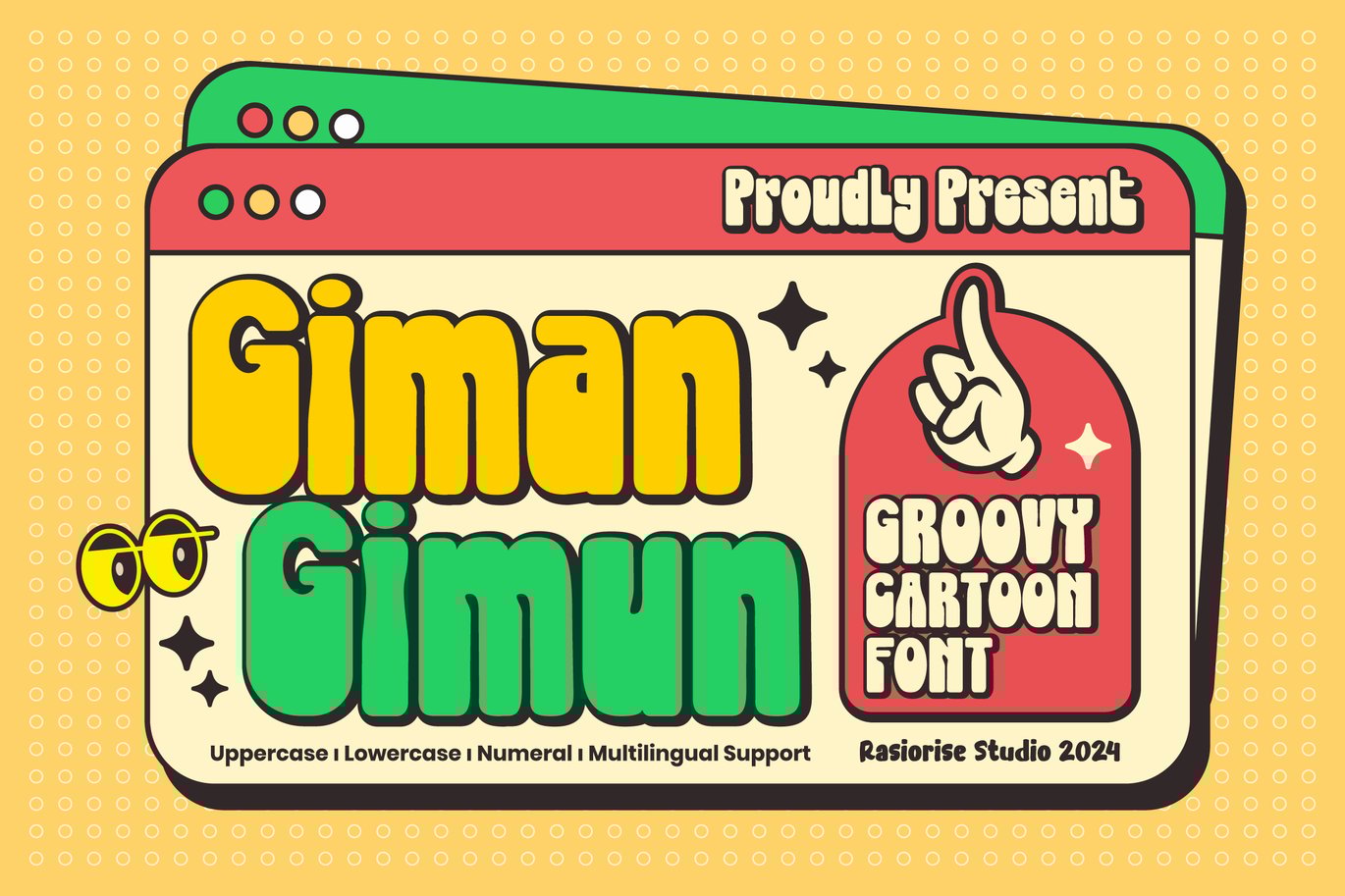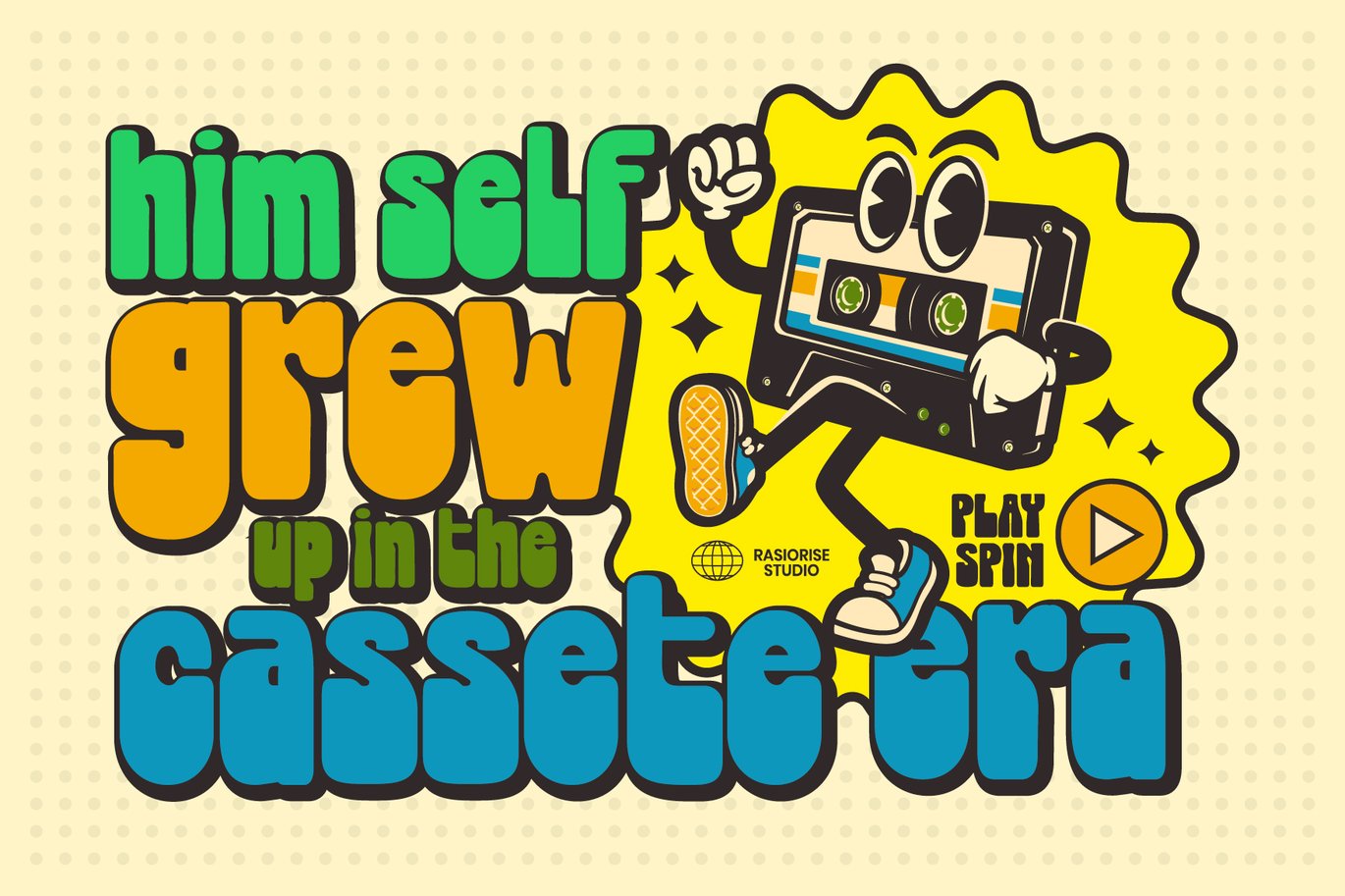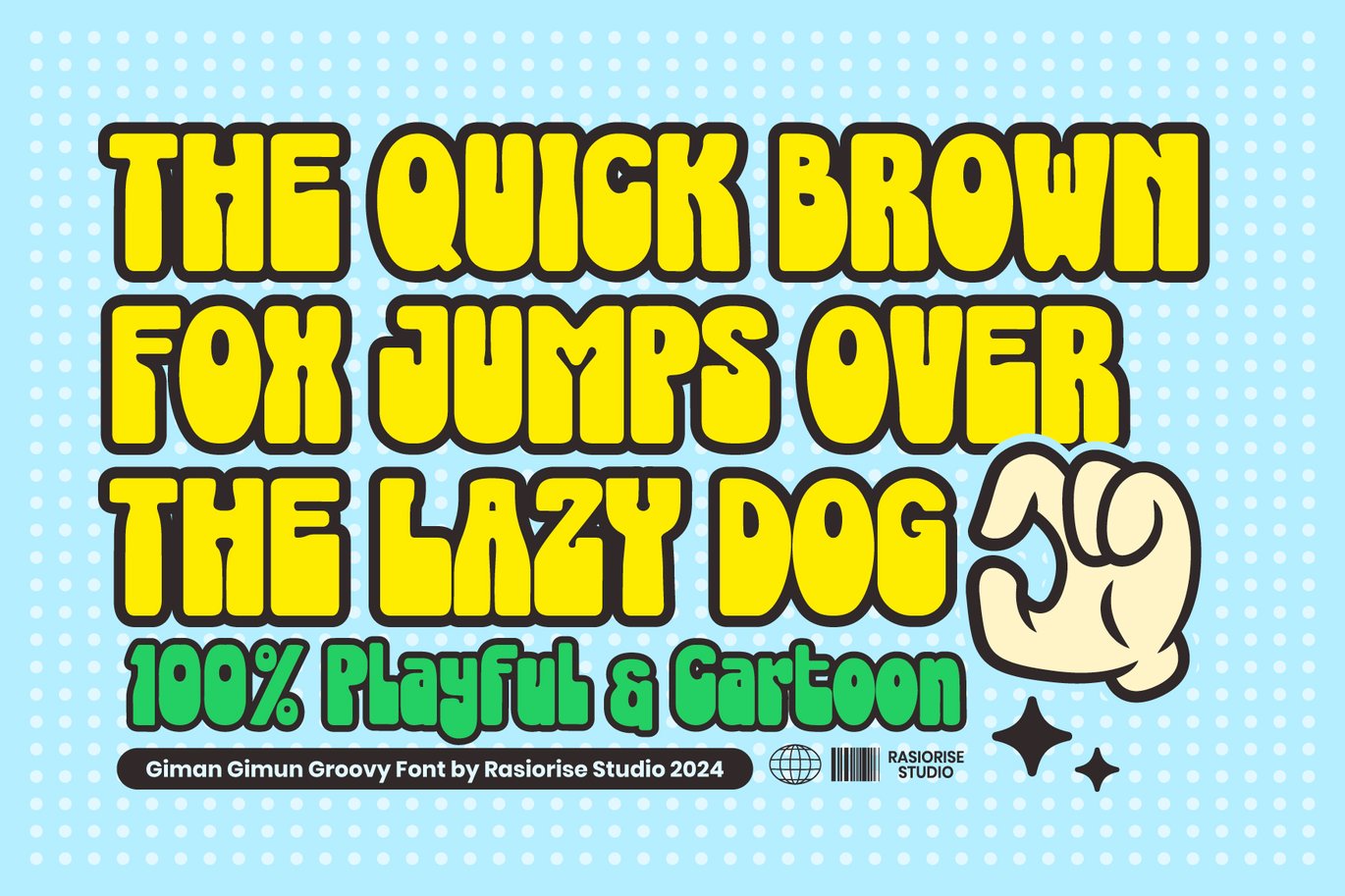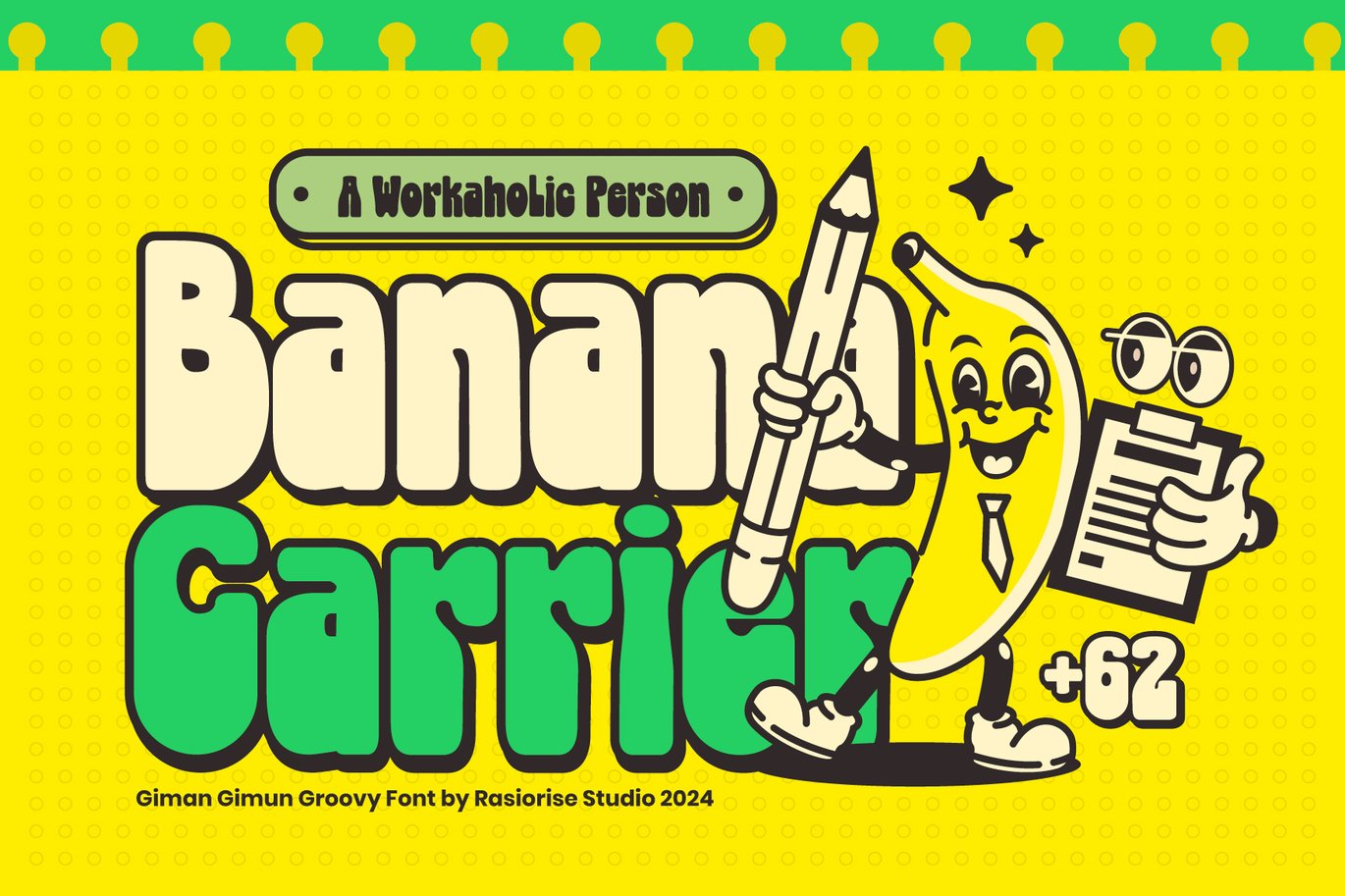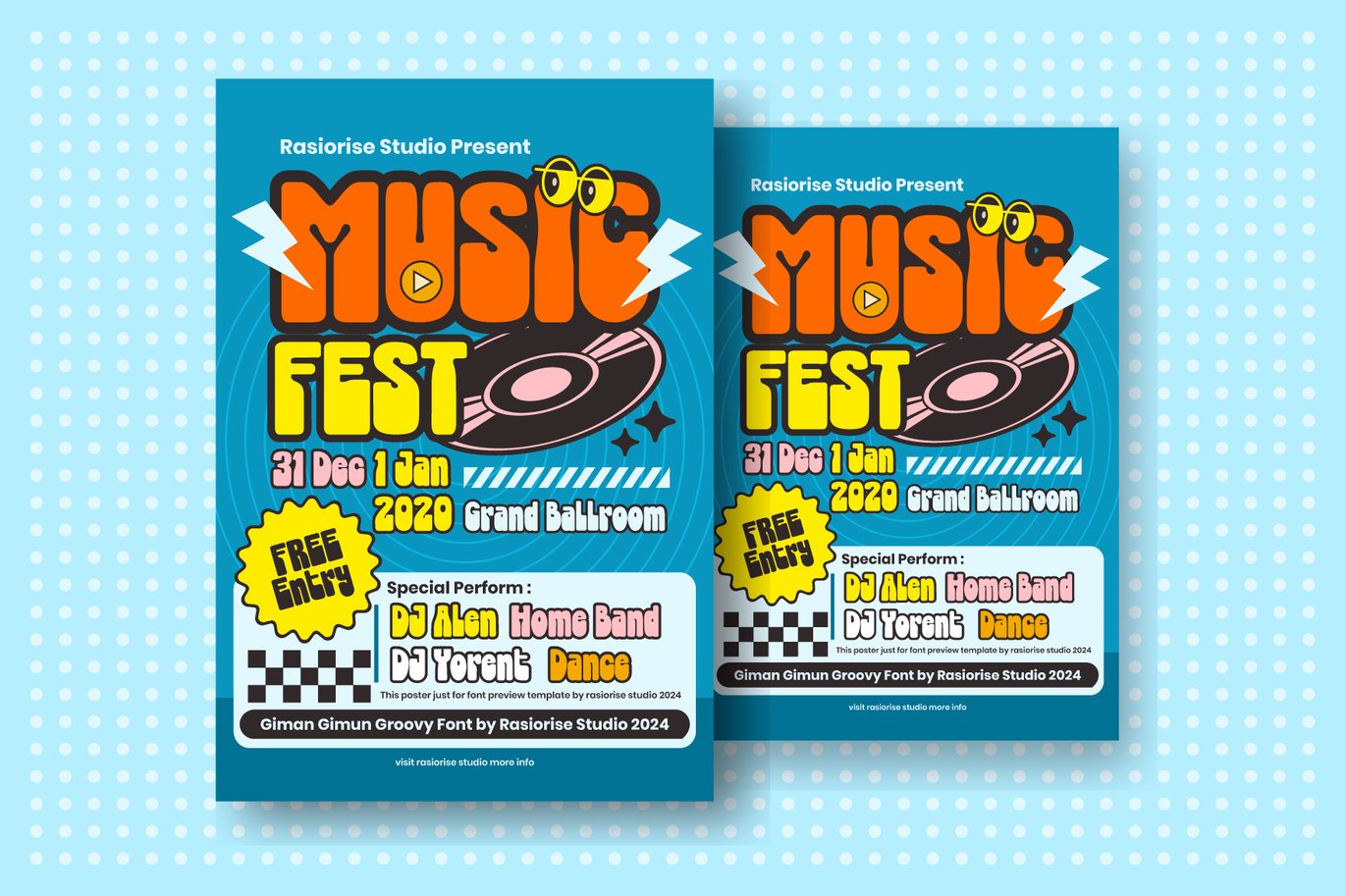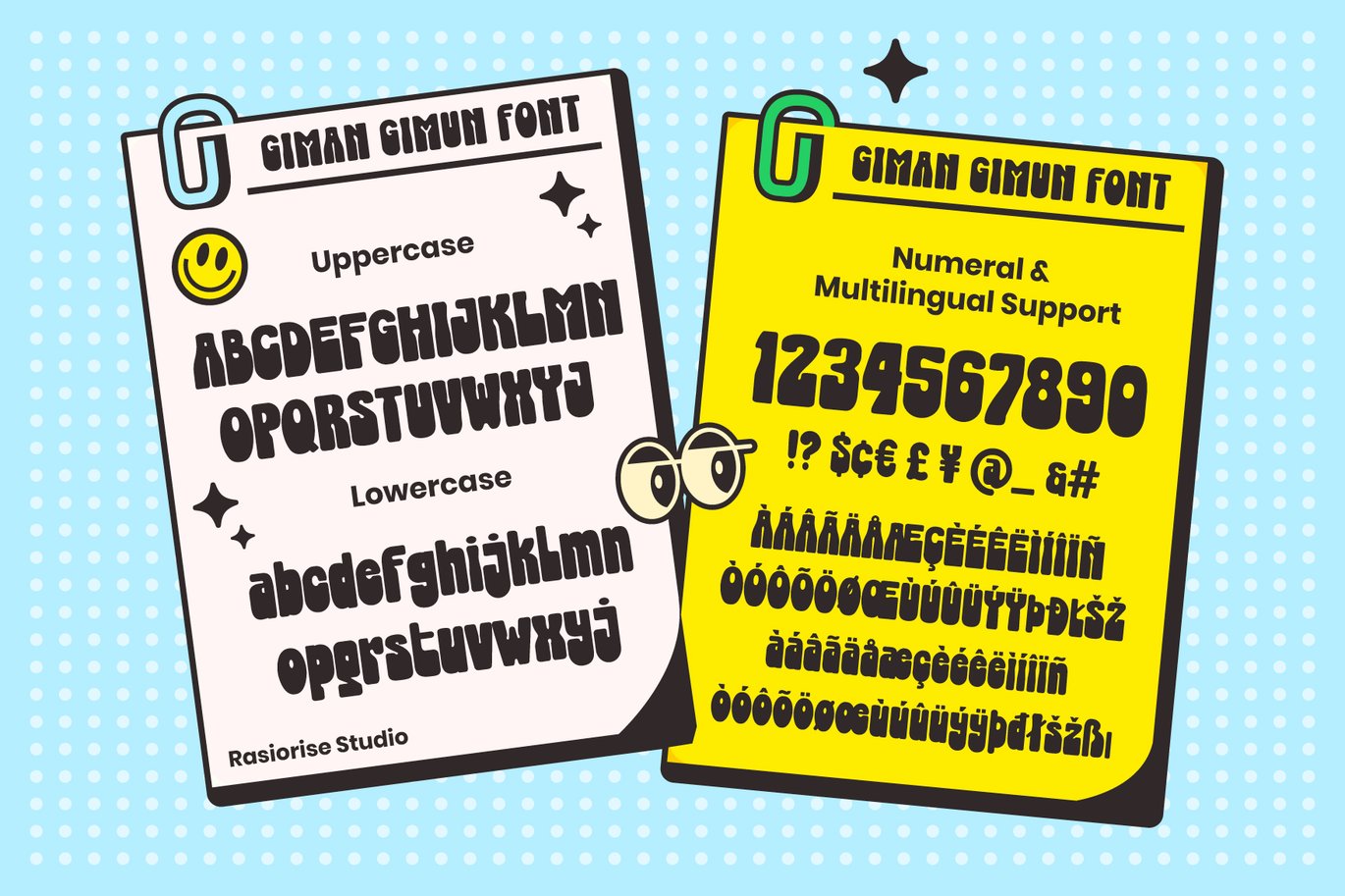
Giman Gimun Groovy Cartoon Font
Presenting Giman Gimun – Groovy Retro Cartoon Font by Rasiorise Studio
Giman Gimun Font has been released for those of you who are looking for a Retro Bold Groovy San-serif Display font, The font is inspired by the retro classic font style with a few combine to turn them into a bit of a groovy modern style. This font is reguler character style, included as the Uppercase and lowercase regular character, numeral and multilingual support, were combined to give the typeface a like a Funky retro cartoon style.
Very suitable for Logotype, Book Cover, Children Book, Comic Text, and much more.